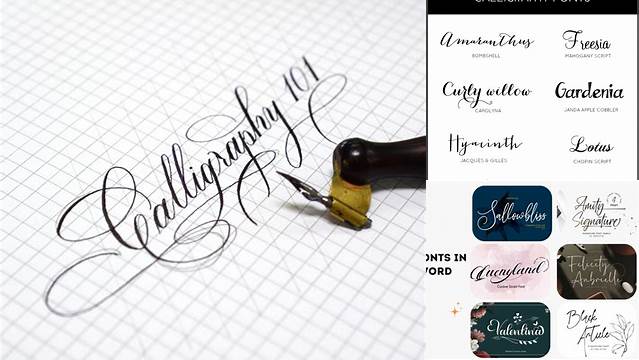
Best Calligraphy Fonts For Microsoft Word: A Complete Guide
Hey guys, are you ready to dive into the beautiful world of calligraphy fonts in Microsoft Word? If you're anything like me, you're probably always on the lookout for ways to spice up your documents and add that extra touch of elegance. Calligraphy fonts are the perfect way to do just that! Whether you're crafting invitations, designing a logo, or just want to make your everyday writing pop, choosing the right font can make all the difference. Let's explore the best calligraphy fonts available in Microsoft Word, how to use them, and some tips to help you create stunning designs.
What Makes a Calligraphy Font Stand Out?
So, what exactly makes a calligraphy font so special? Well, it's all about the art of beautiful writing! Calligraphy fonts are designed to mimic the strokes and flourishes of hand-lettering. They often feature varying line thicknesses, elegant curves, and unique letterforms that give your text a sophisticated and artistic look. Unlike standard fonts, calligraphy fonts are meant to capture the essence of personalized, artistic writing. They can range from formal and traditional to modern and playful. The best calligraphy fonts are those that not only look beautiful but also are legible and versatile enough to be used in various projects. Think about the details – the delicate serifs, the way the letters connect, and the overall flow of the text. These elements combine to create a visual experience that draws the reader in and adds a touch of class. Choosing a great calligraphy font is like selecting a perfect outfit; it should match the occasion and reflect your personal style. When you're picking a font, consider the message you want to convey. Are you aiming for a classic, romantic feel, or a more contemporary and edgy vibe? This choice is crucial because it sets the tone for your entire project. The goal is to pick a font that complements your content, making it both visually appealing and easy to read. Remember, legibility is key! The most beautiful font in the world won't do you any good if no one can read it. Look for fonts that have a good balance between style and functionality. Now, let’s look at some of the best calligraphy fonts available in Microsoft Word!
Legibility and Versatility
When selecting a calligraphy font, prioritize both legibility and versatility. A font that is difficult to read will defeat its purpose, no matter how beautiful it may appear. Look for fonts that maintain clarity even at smaller sizes. Versatility is equally important; the font should be suitable for various applications, from formal invitations to casual greeting cards. Consider how the font appears in different contexts, such as on screen, in print, and in different color schemes. The best fonts work well in various settings, ensuring that your designs are adaptable and effective.
Understanding Font Styles
Calligraphy fonts come in a wide array of styles, each evoking a different mood and aesthetic. Some fonts emulate classic calligraphy, with elegant, flowing strokes and formal letterforms, ideal for traditional invitations or certificates. Others have a more modern edge, featuring bolder lines and contemporary designs perfect for branding and social media graphics. There are also script fonts that mimic handwritten styles, offering a casual and personal touch, great for greeting cards or informal documents. Recognizing these diverse styles allows you to choose the font that best complements your project's overall theme and tone.
Top Calligraphy Fonts You Can Use in Microsoft Word
1. Brush Script MT
Brush Script MT is a classic, and for good reason. It's a beautiful script font that looks like it was written with a brush pen. It’s super versatile and works well for everything from invitations to headings. The style is casual, yet elegant. It’s easy to read, making it a great choice for body text as well, though it's often used for headings and shorter pieces of text where you want to make a statement. The flowing, handwritten style adds a personal touch that can elevate any design. Plus, it’s usually available right out of the box in Microsoft Word, so you can start using it immediately!
2. Edwardian Script ITC
Edwardian Script ITC is all about sophistication! This one has a more formal feel, perfect for when you want to add a touch of elegance to your documents. This font exudes a classic, vintage vibe that’s perfect for wedding invitations, certificates, or any project that requires a touch of class. The intricate swirls and loops give it a distinguished appearance. It's a bit more elaborate than Brush Script, so use it wisely. Too much of it might make your design feel overwhelming, but used sparingly, it adds a timeless elegance.
3. Lucida Calligraphy
Lucida Calligraphy is another fantastic option! This font has a graceful and flowing design, resembling elegant handwriting. It's easy to read, making it a great choice for longer text passages. It's less formal than Edwardian Script, but still gives a touch of sophistication to your work. The curves are beautifully executed, and the overall impression is one of effortless elegance. Lucida Calligraphy works well for a variety of projects, including invitations, greeting cards, and even branding materials.
4. Dancing Script
Dancing Script is a fun, playful font that's perfect for more casual projects. This one has a bouncy, handwritten style that's full of personality. It's great for adding a friendly and approachable feel to your documents. Dancing Script is a popular choice for social media graphics, posters, and any project where you want to convey a sense of fun and spontaneity. Its informal style makes it ideal for invitations and greeting cards that aim for a relaxed and cheerful vibe.
5. Great Vibes
Great Vibes is a stylish and elegant font that's perfect for a variety of projects. It has a more modern look, making it a great choice for branding and design work. Its clean lines and sophisticated style make it a favorite for headings and titles. Great Vibes works beautifully in logos, website headers, and any project where you want to create a strong visual impact. The elegant curves and subtle flourishes give it a refined appearance. It’s excellent for conveying both creativity and professionalism.